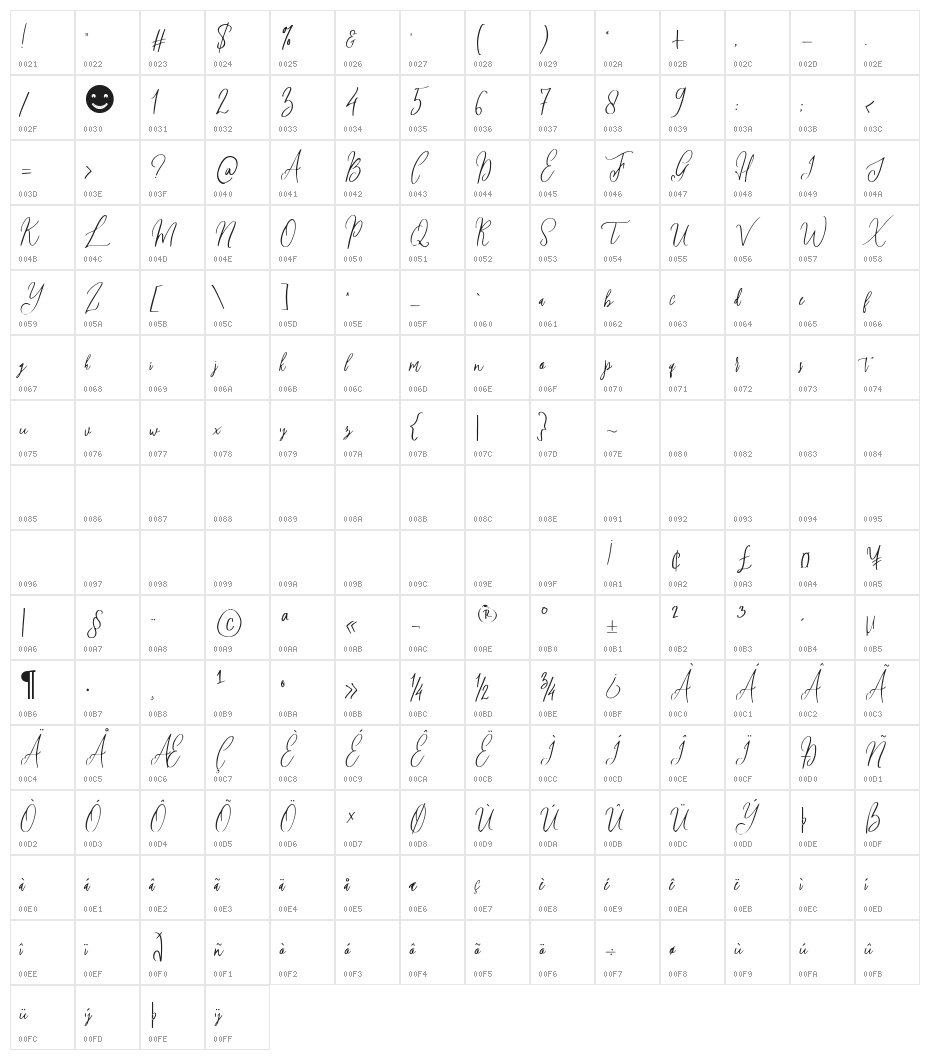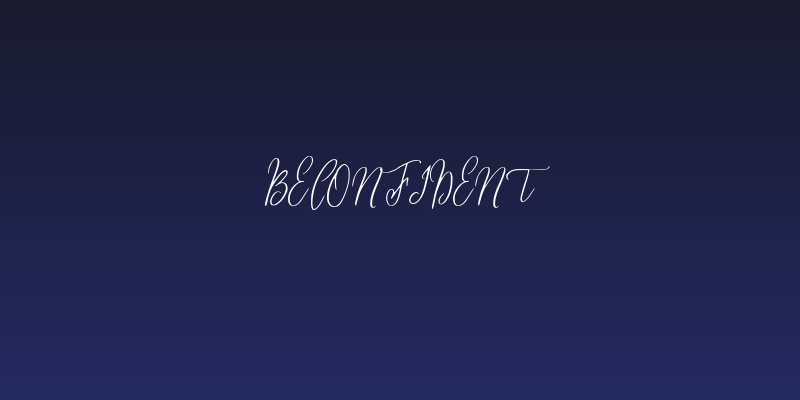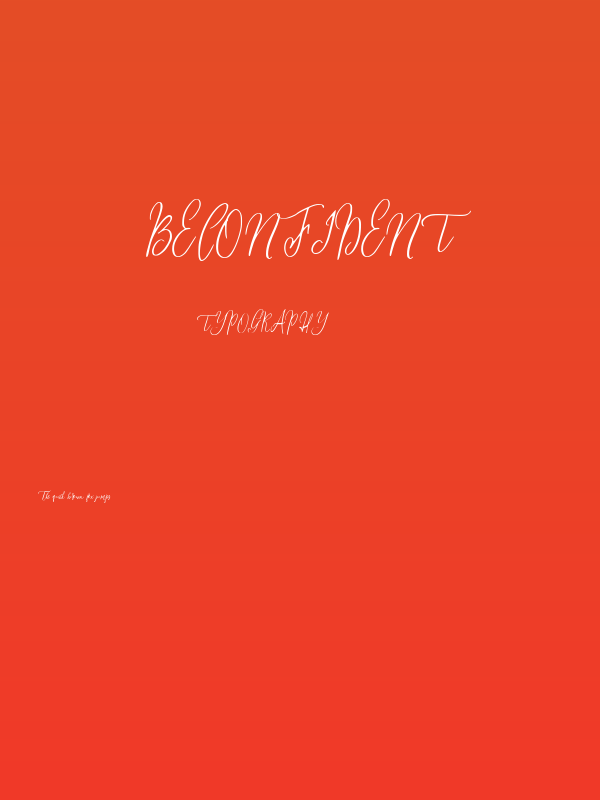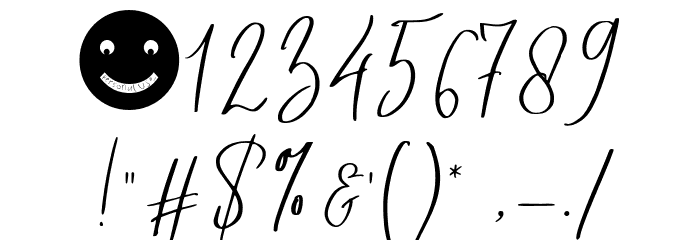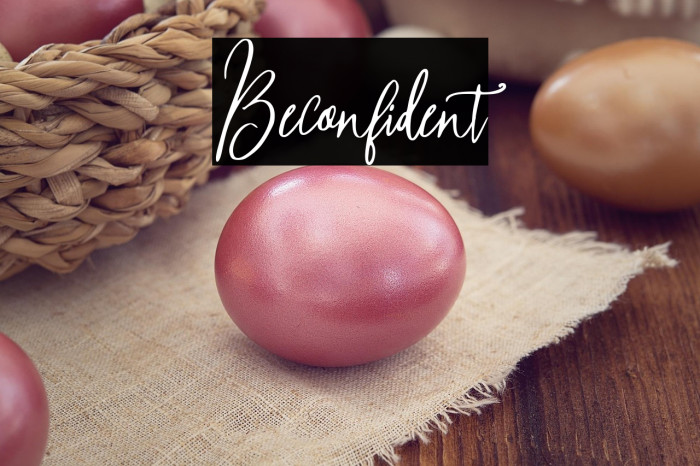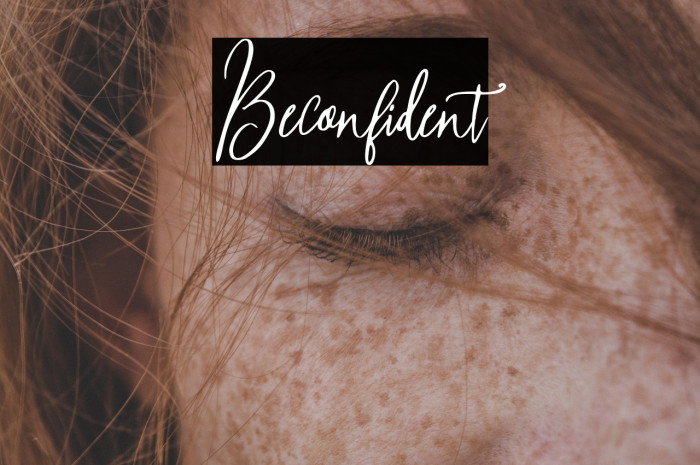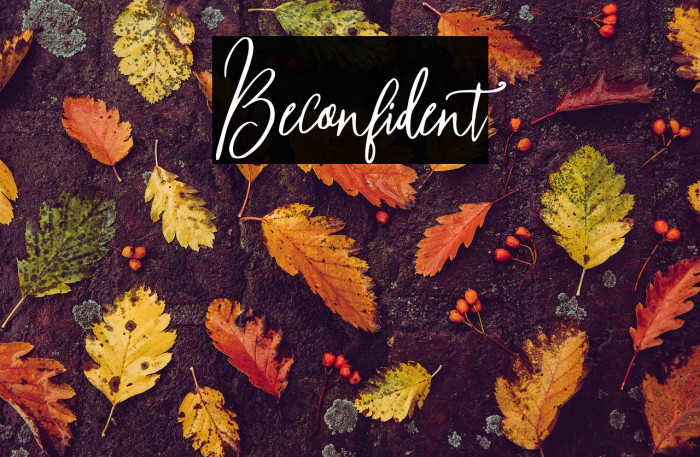
Beconfident Font
Beconfident Description
This font exudes elegance and sophistication with its flowing, cursive style. The letters are intricately designed with smooth, sweeping curves that give a sense of fluidity and grace. The uppercase letters are particularly ornate, featuring elaborate loops and flourishes that add a touch of drama. The lowercase letters complement the uppercase with their own subtle curves and delicate strokes. Numbers and special characters maintain the same elegant style, ensuring consistency across all text elements. This font is perfect for projects that require a touch of class and refinement, such as wedding invitations, formal event programs, or luxury brand logos.